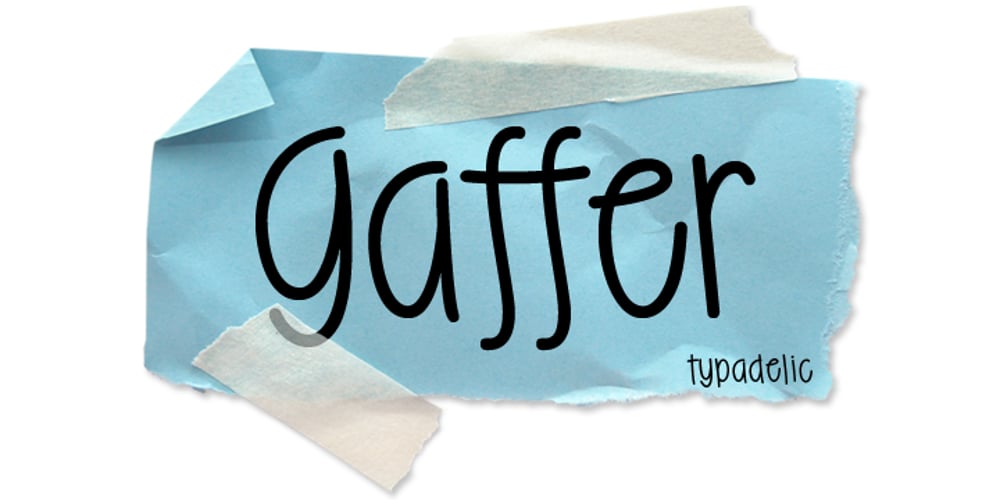
Gaffer
Gaffer font
Gaffer Font Family was designed by Ronna Penner and published by Typadelic. Gaffer contains 1 styles and family package options. Gaffer is a simple little font! The backward slant, large x-height and short ascenders/descenders give the font a casual handwritten look. I’ve included some extra ligatures (ffi, ffl, ff, ks, tt, tf, ft, st) which will substitute automatically when used with OpenType savvy applications. Use Gaffer for projects where you need a casual look: on the web, scrapbooking, greeting cards, emails or a letter to a friend. Where would *you* use Gaffer?